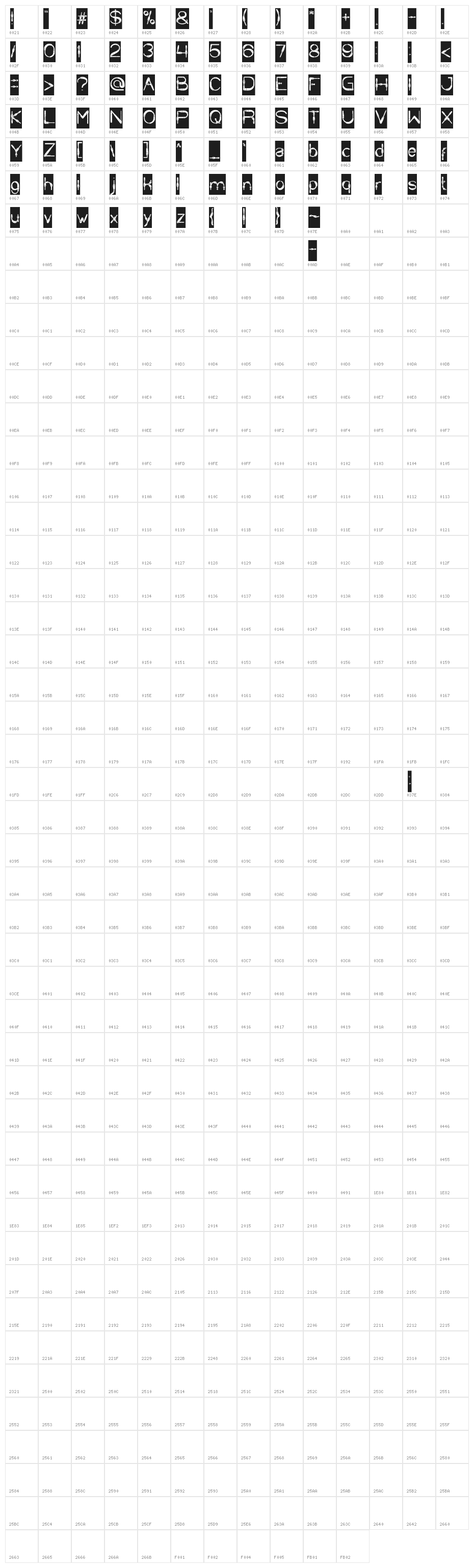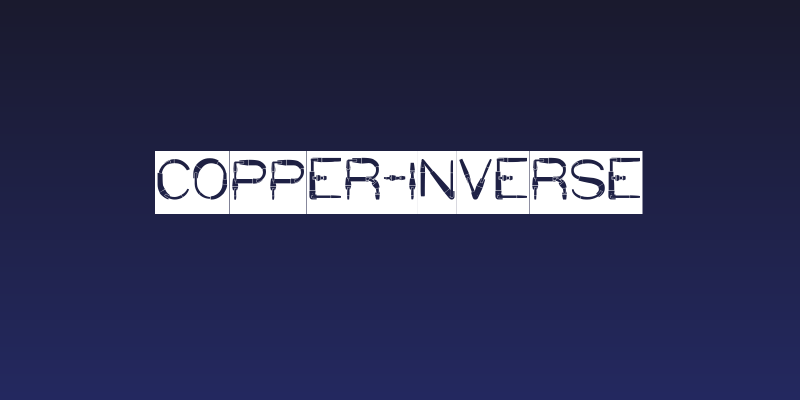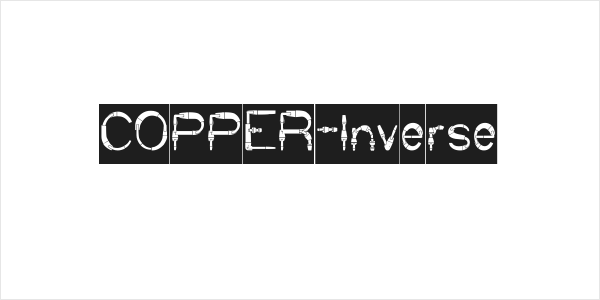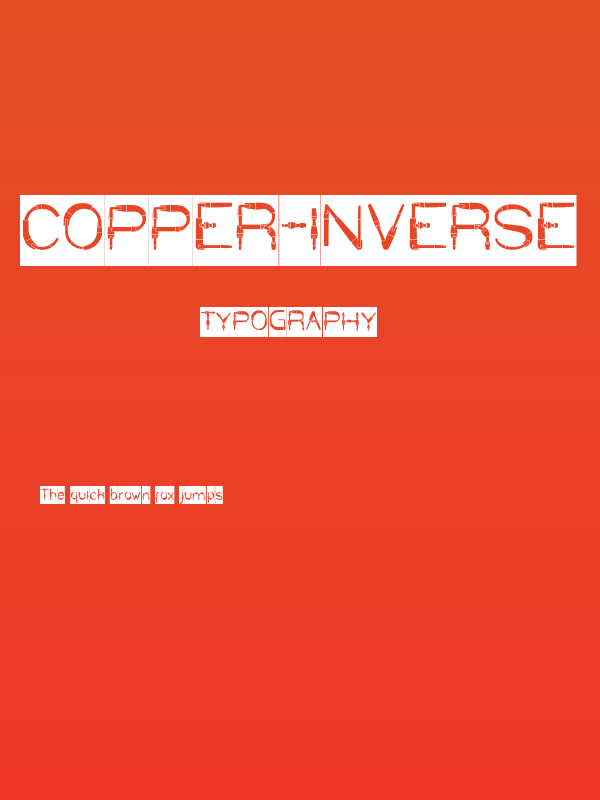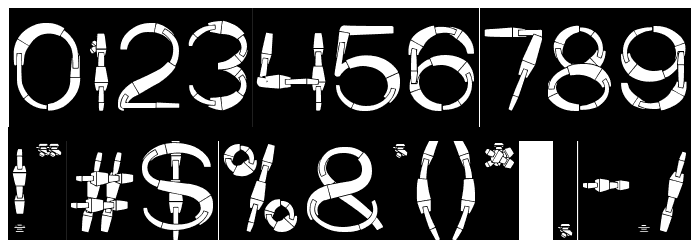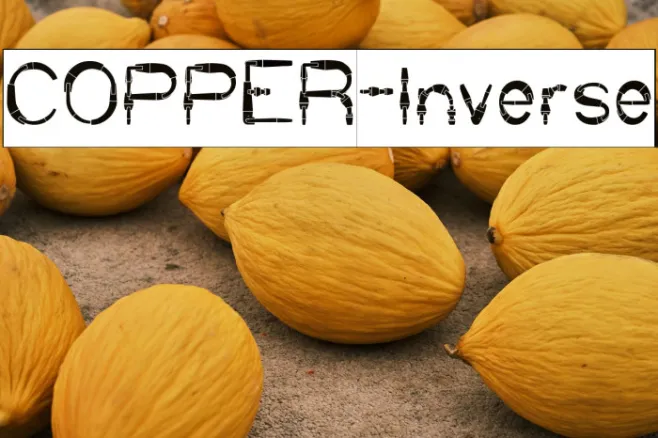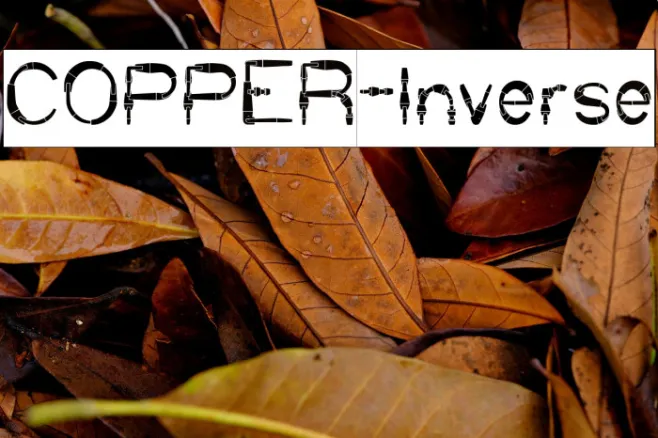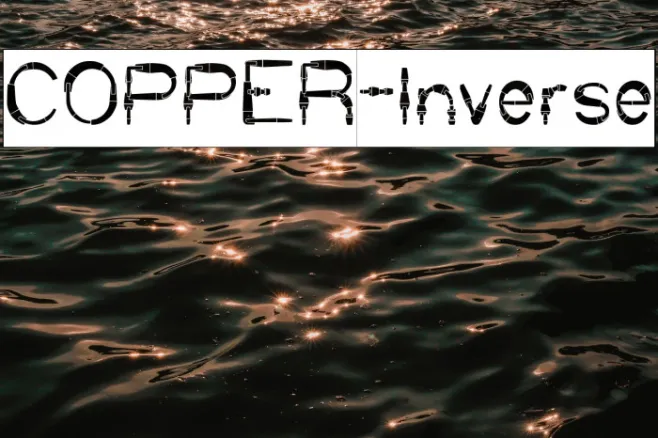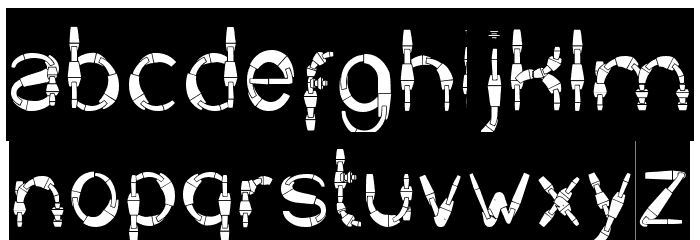
COPPER-Inverse Font
COPPER-Inverse Description
This font features a unique design inspired by industrial elements, with each character resembling interconnected pipes or tubing. The letters are constructed with a combination of straight lines and curves, giving them a mechanical and structured appearance. The font maintains a consistent thickness throughout, with no variation in stroke width, which contributes to its uniform and cohesive look. The characters are well-defined and distinct, making them easily readable despite their decorative style. The font includes a full set of uppercase and lowercase letters, numerals, and a variety of special characters, all designed in the same industrial theme.
| Overall Style | Industrial, Mechanical |
| Use Case | Logos, Posters, Display text |
| Proposed Projects | Ideal for projects related to engineering, technology, or industrial design. Suitable for creating logos, posters, or any graphic design work that requires a mechanical or technical aesthetic. |